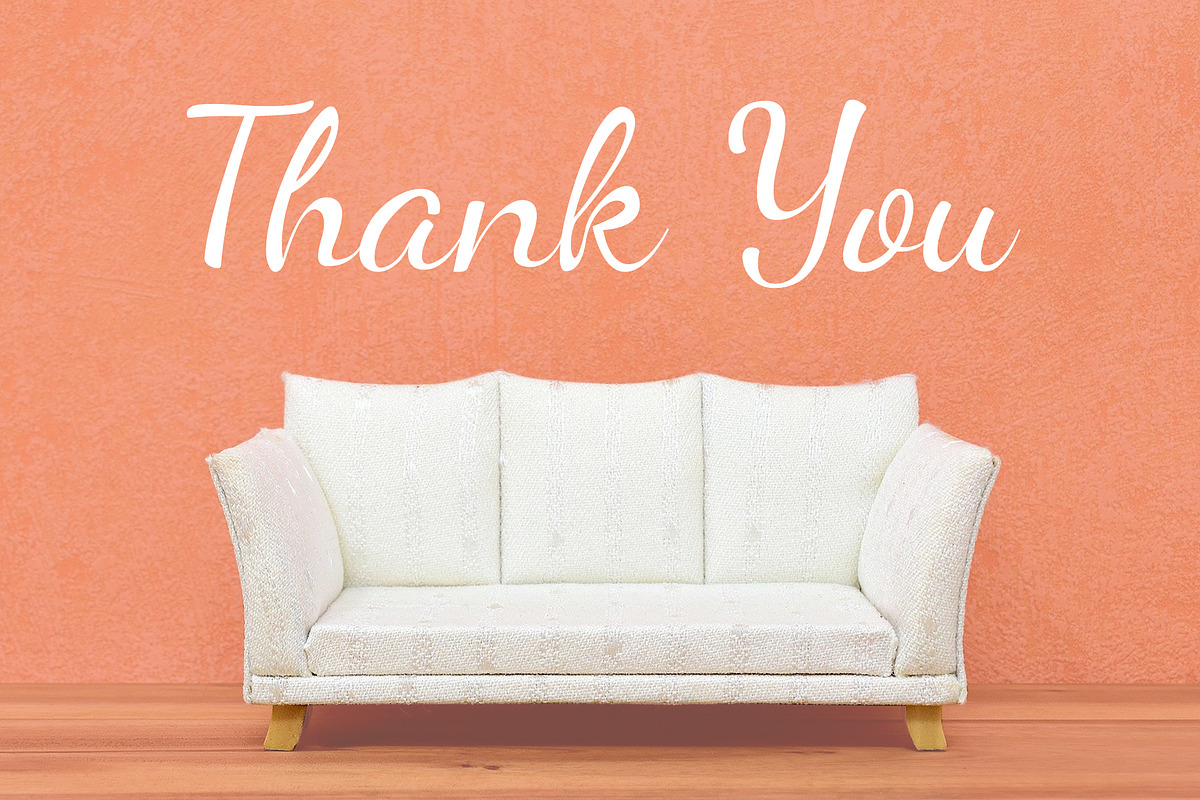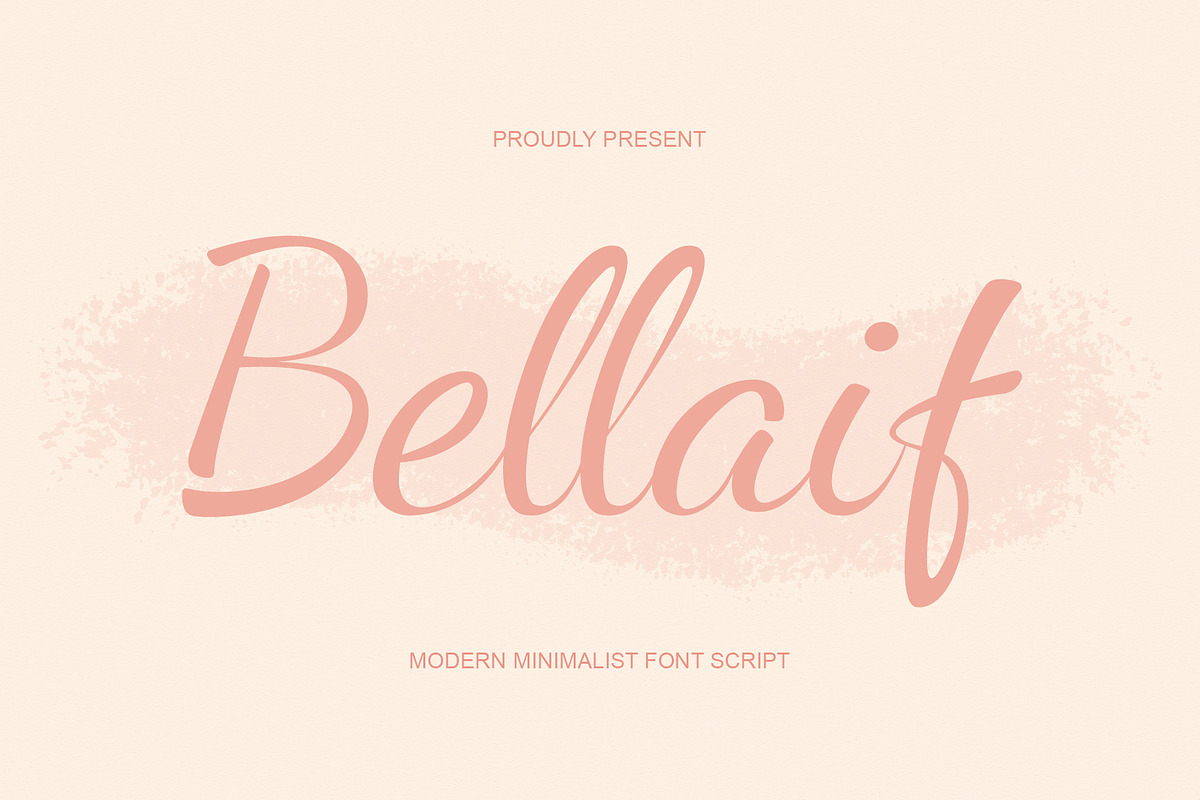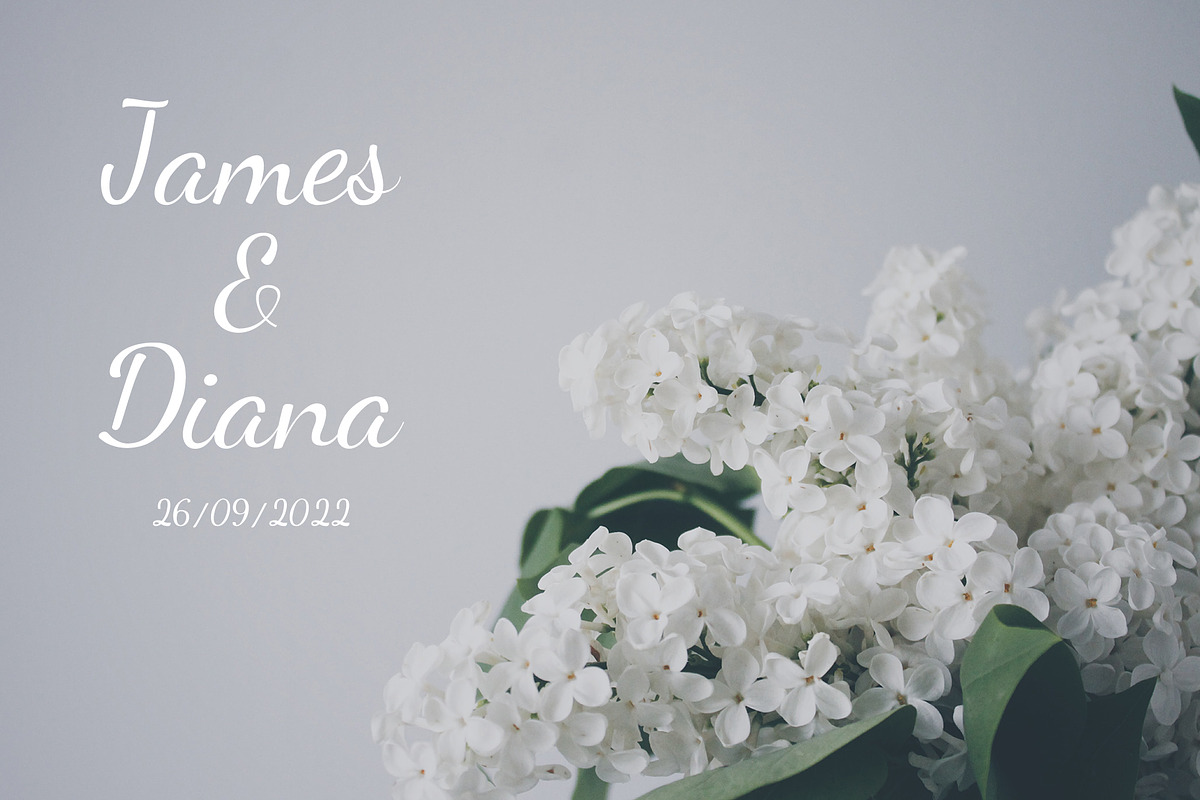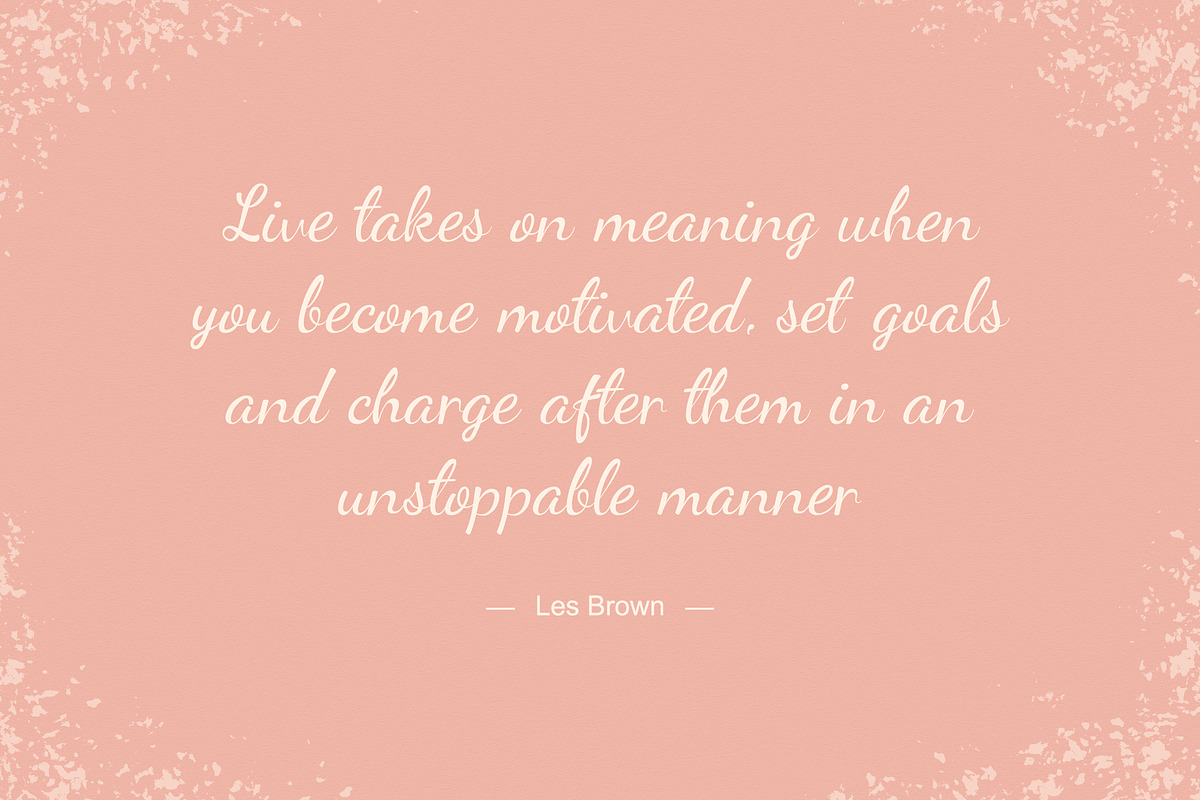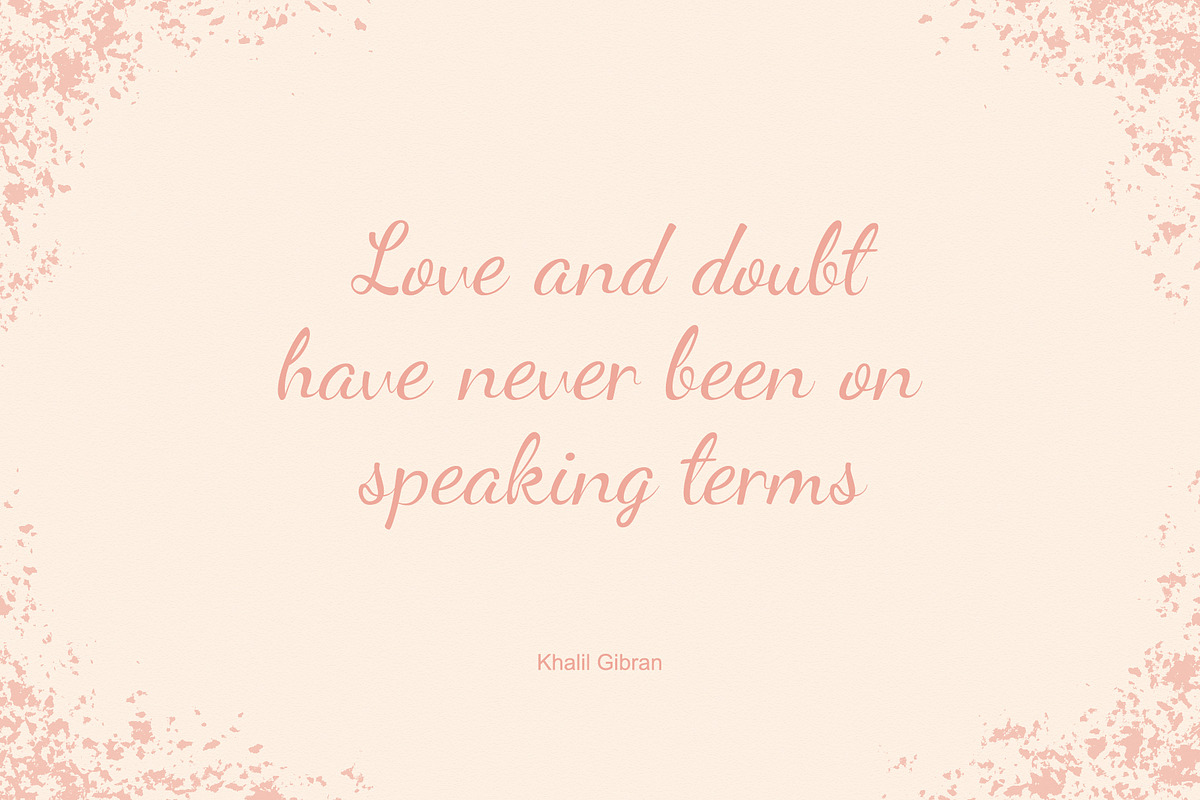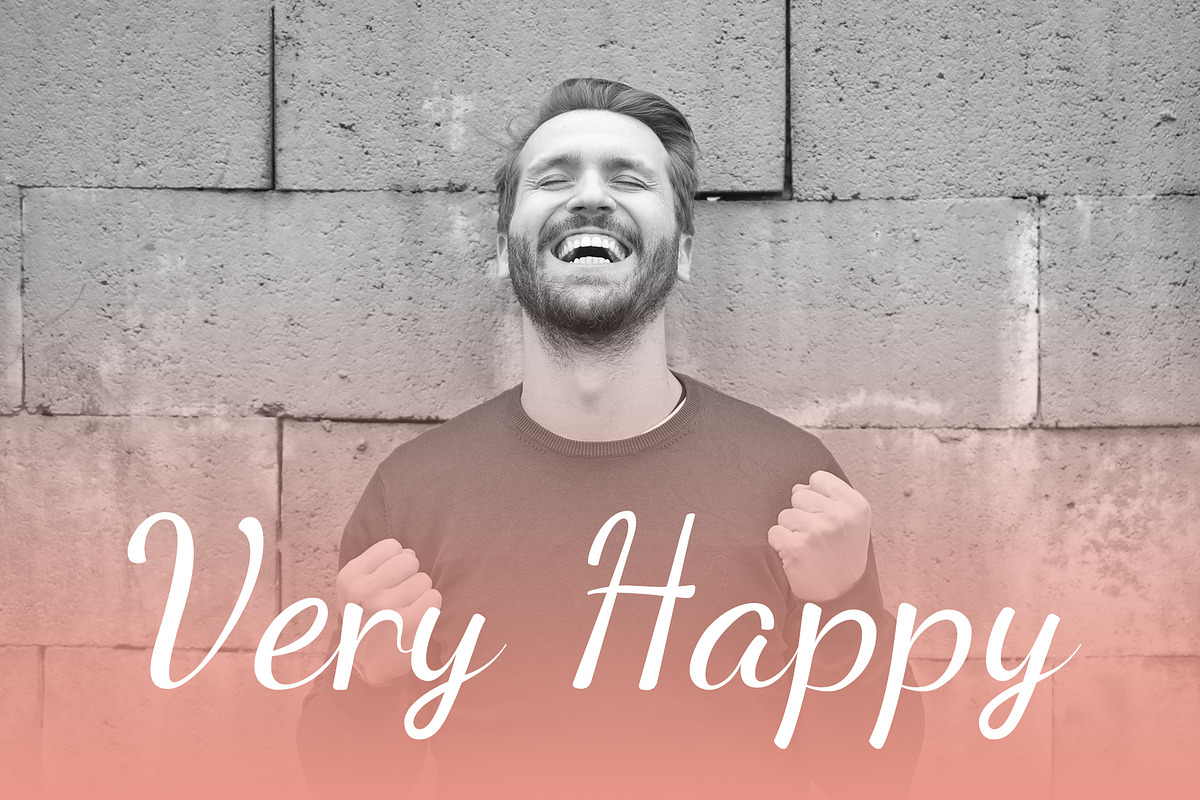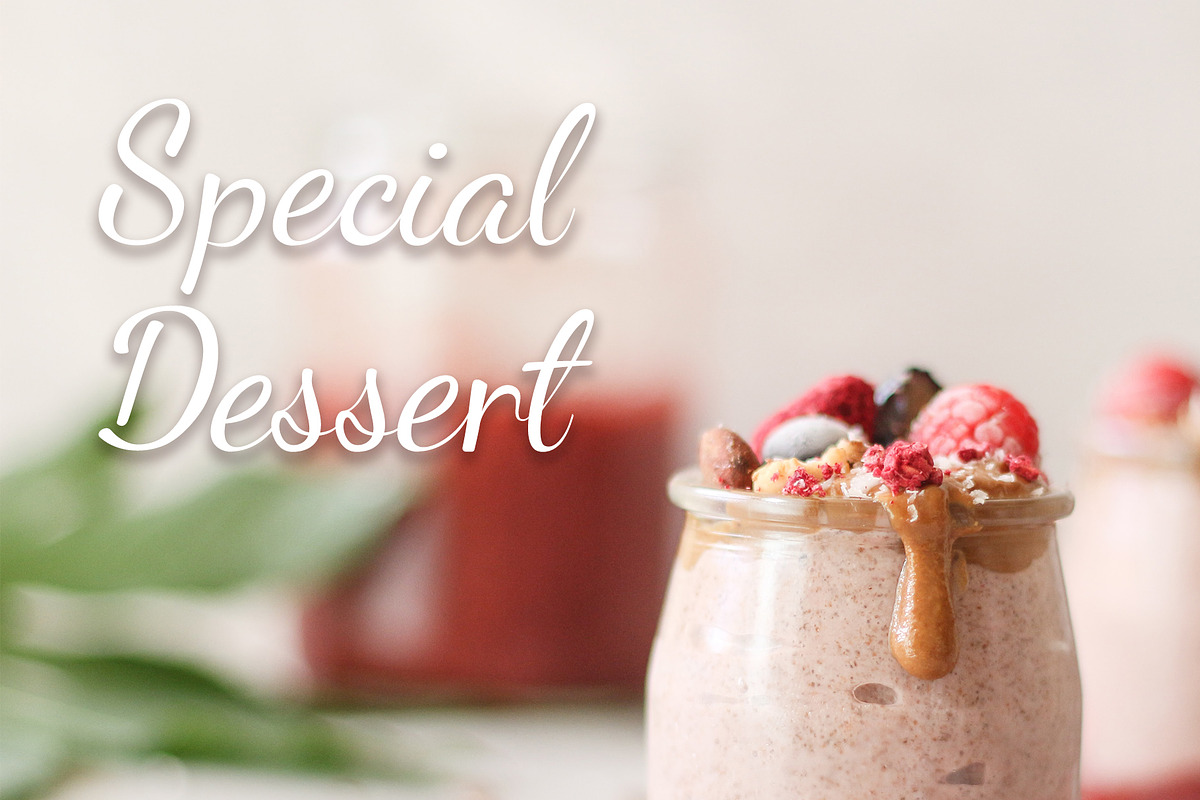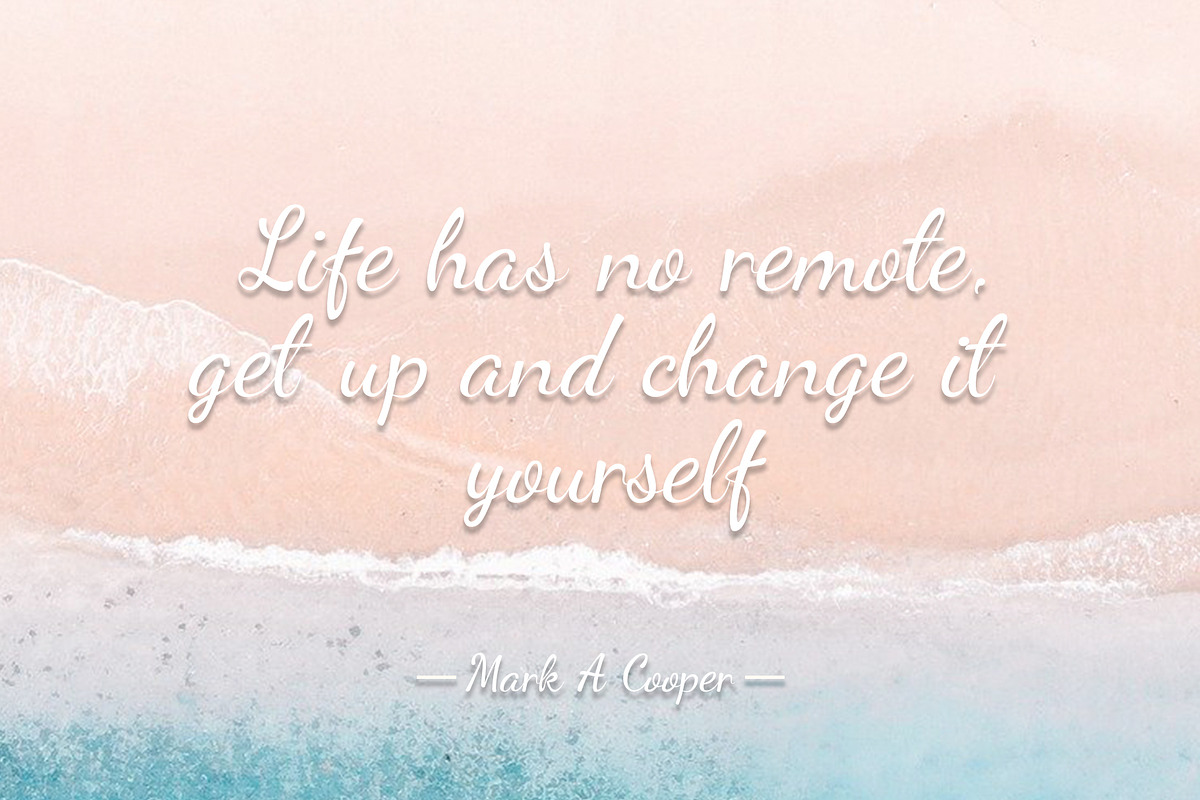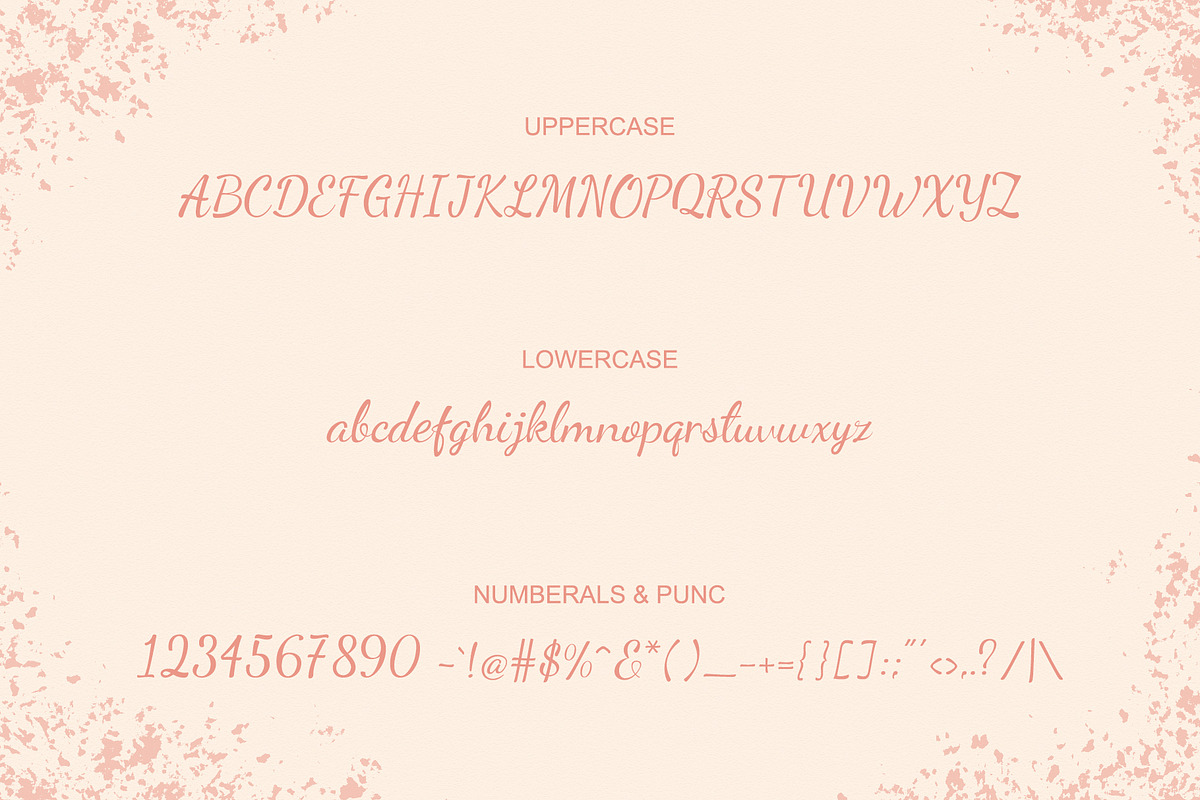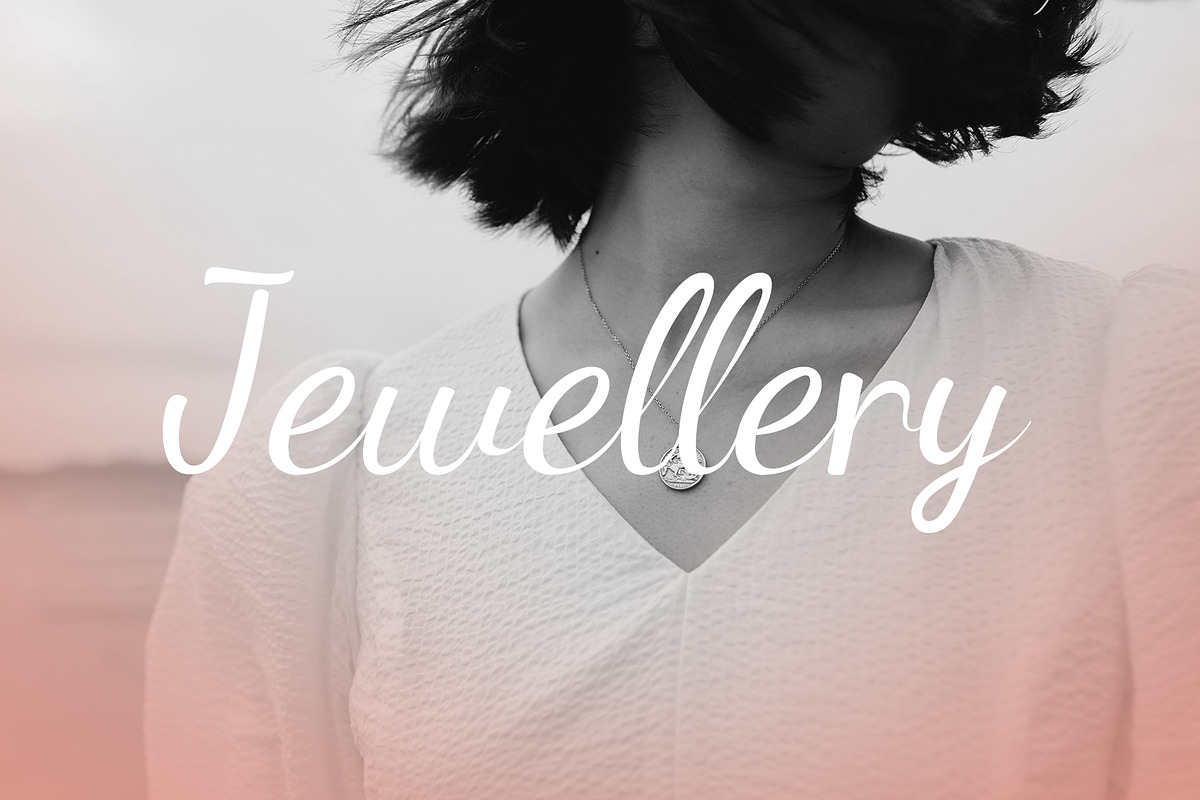
Bellaif | modern handwritten font
Bellaif
Bellaif is a script font that is beautifully crafted in a feminine style. This font is perfect for wedding invitations, cake shop menu lists, branding logos, greeting cards, invitation cards, and for quotes.